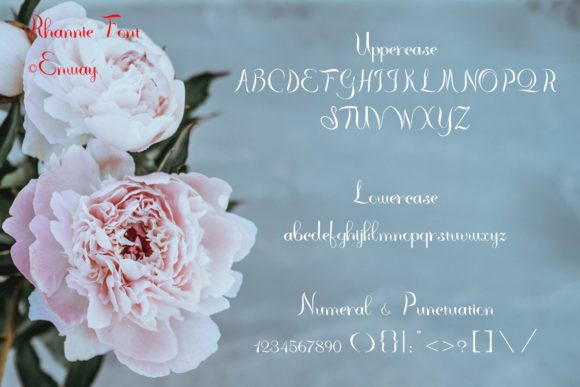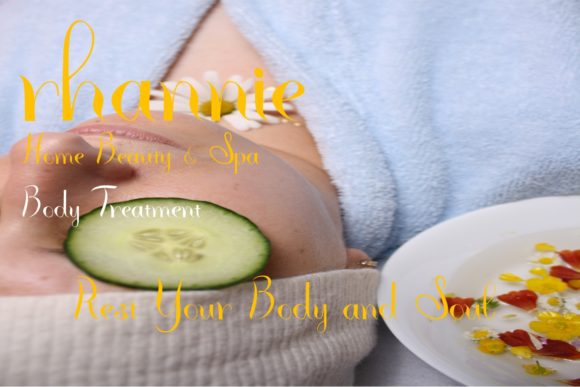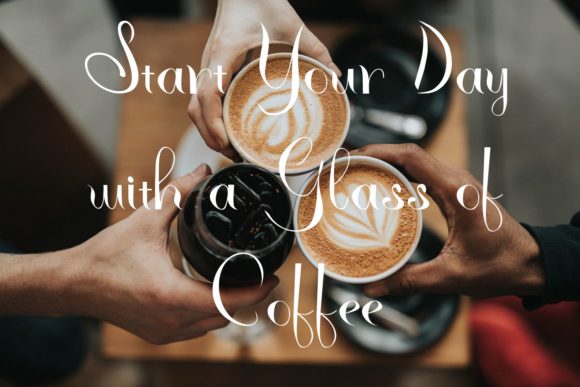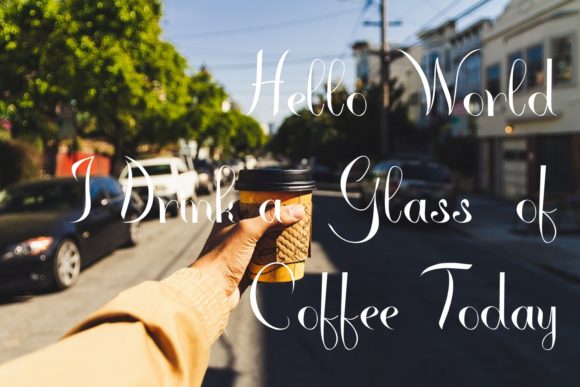
HomeScript FontsRhannie Script Font Script Fonts Rhannie Script Font FacebookXPinterestWhatsApp Rhannie Script Font Poster 2 Rhannie Script Font Poster 3 Rhannie Script Font Poster 4 Rhannie Script Font Poster 5 About Rhannie Script Font Rhannie is a beautiful and charming font. It will turn any design idea into a stand out! DOWNLOAD NOW People also explored The Date Line Font Regorden Font Nakser Font Dramatic Style Font Washida Font Dokyo Historyline Font Lamplinght Font Seabird Font 311 0 TagsRhannie Script Font Previous articlePenhead FontNext articleButterfly Kisses Font LEAVE A REPLY Cancel reply Comment: Please enter your comment! Name:* Please enter your name here Email:* You have entered an incorrect email address! Please enter your email address here Website: Save my name, email, and website in this browser for the next time I comment. Personal Use Free Namskow Personal Use Free Read more about this font Happy Rabbit Personal Use Free Read more about this font Amrina Personal Use Free Read more about this font Hanberra Personal Use Free Read more about this font BLOG The 10 Best Handwriting Fonts to Add Personality to Your Designs 10 of the Best Handwriting Fonts for Adding Personality to Your Designs There will undoubtedly be no other better choice than handwriting fonts to give... Using Fonts in Digital Marketing: Tips to Strengthen Your Brand Identity Where to Buy American Fonts Online in 2024 Best Fonts for YouTube Videos: Make Your Thumbnails Stand Out